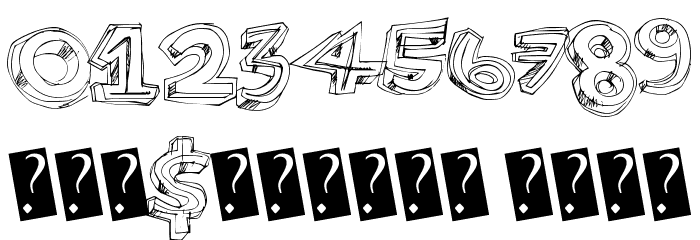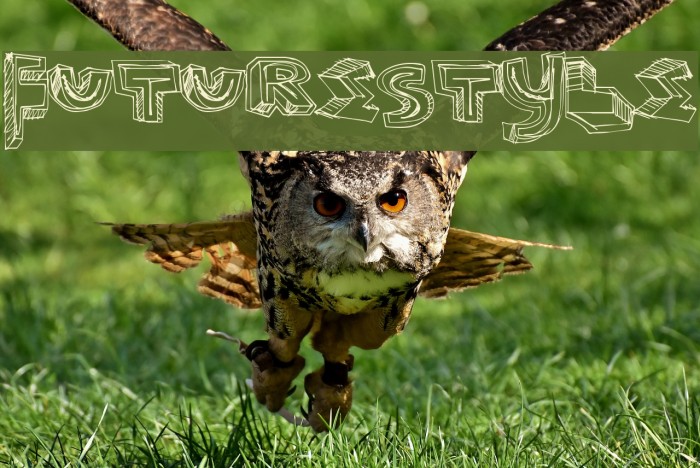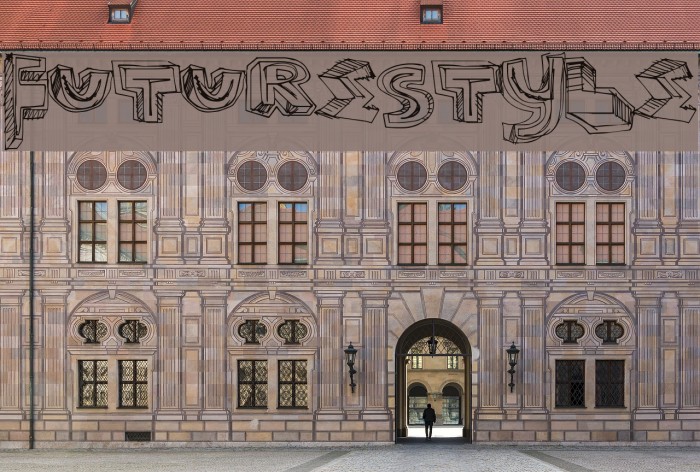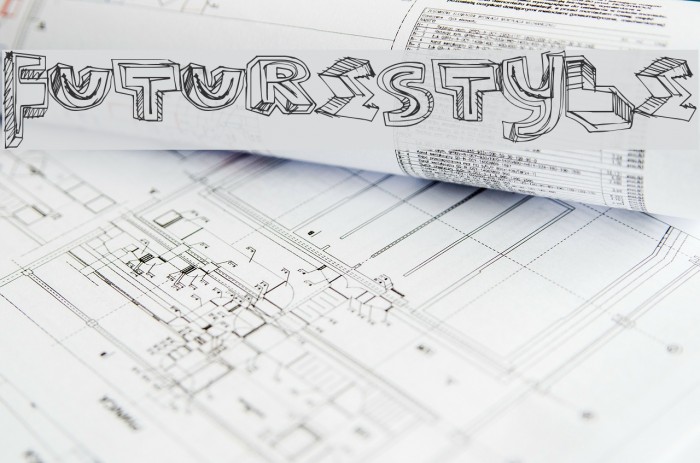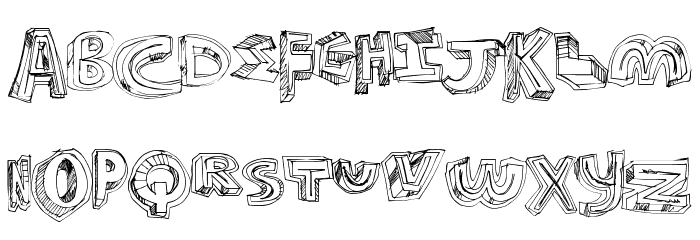
FutureStyle Font
FutureStyle Description
This font features a bold, 3D sketch style with a hand-drawn appearance, giving it a playful and dynamic look. Each character is outlined with a rough, textured line that adds depth and dimension, making it stand out. The uppercase and lowercase letters maintain a consistent style, with exaggerated serifs and angles that contribute to its unique aesthetic. Numbers and special characters follow the same design principles, ensuring a cohesive look across all glyphs. The font's artistic flair makes it suitable for creative projects that require a touch of whimsy and boldness.
A bold, hand-drawn 3D sketch font with a playful and dynamic style from Cartoon fonts.